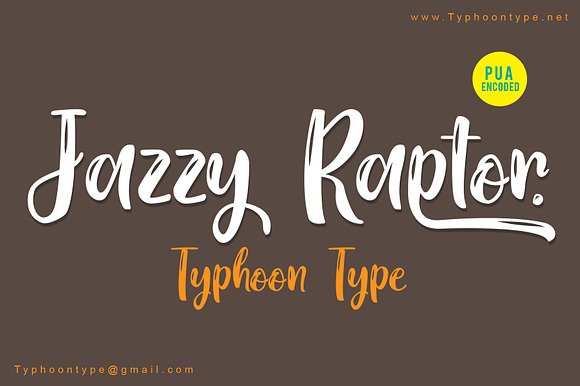
Jazzy Raptor font
Jazzy Raptor This Font perfect for logos, name tag, advertising, product packaging, clothing, social media & greeting cards.
Why Jazzy Raptor font is worth a look
Jazzy Raptor font by TyphoonStudio fits naturally into Branding, posters, packaging, typography.